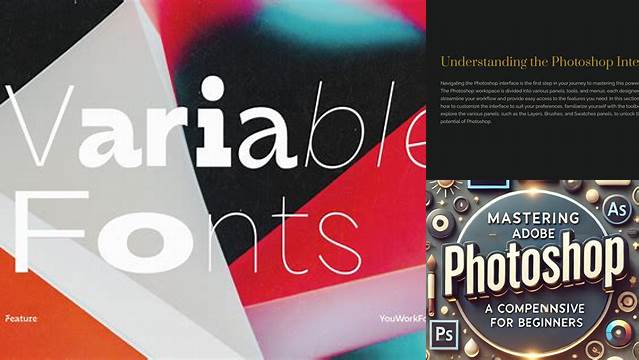
Variable Fonts In Photoshop: A Beginner's Guide
Using variable fonts in Photoshop opens up a whole new world of typographic possibilities, allowing you to create dynamic and engaging designs. This comprehensive guide will walk you through everything you need to know, from understanding the basics to implementing advanced techniques. Get ready to elevate your designs and unlock the full potential of variable fonts!
What are Variable Fonts and Why Should You Care?
So, what exactly are variable fonts? Well, guys, imagine a single font file that packs a whole bunch of different styles and weights within it. Instead of having separate files for bold, italic, condensed, and all the other variations of a typeface, you get one super-powered font that lets you smoothly adjust those characteristics. Think of it like a slider – you can tweak the weight, width, slant, optical size, and other design axes to find the perfect look for your text. This is awesome because it gives you unprecedented control over your typography. Before variable fonts, if you wanted to change the weight of a font, you had to switch to a different font file altogether, which could be a pain. Now, you can just slide the weight axis until you get exactly what you want. This flexibility is amazing for creating responsive designs that adapt to different screen sizes and layouts, ensuring your text always looks its best. Variable fonts also help with file size optimization. Since you're using a single font file, it's generally smaller than a collection of individual font files, which can speed up website loading times and improve overall performance. This also means you can create a wider range of text variations within a design, adding more personality and visual interest without bloating your project. Variable fonts can bring your projects to life, creating a more dynamic and user-friendly experience!
Diving Deep: Understanding the Anatomy of Variable Fonts
Alright, let's get under the hood and peek at how variable fonts actually work. Every variable font is built on a set of design axes. These axes are like the sliders I mentioned earlier – they control different aspects of the font's appearance. The most common axis is the Weight axis, which controls the thickness of the strokes. Then you have the Width axis, which adjusts the horizontal spacing of the characters, and the Italic or Slant axis, which affects the angle of the text. Some variable fonts even have more specialized axes, like Optical Size, which changes the font's appearance to look better at different sizes, or Grade, which adjusts the thickness of the strokes for different printing conditions. Each axis has a numerical range, and the values you choose on these axes determine the final look of the text. For example, the Weight axis might range from 100 (light) to 900 (black), allowing you to dial in any weight you need. You can also use combinations of axes. You could, for example, make a font heavier and more condensed. The beauty of variable fonts lies in their potential for fine-tuning. They allow you to create subtle and elegant transitions between different styles within your designs, improving visual interest and accessibility! They can be used for creative expression, data visualization, and responsive design, offering flexibility and efficiency in modern design projects. With the help of variable fonts, you have total control over your text!
How to Identify and Find Variable Fonts
Okay, now that you know the basics, let's talk about how to actually find these magical fonts. Not every font is a variable font, so you'll need to know where to look. The easiest way to identify a variable font is to check the font's metadata. If a font is variable, the font file will contain information about its design axes. When you're browsing font websites, such as Google Fonts, Adobe Fonts, or other font foundries, look for indicators that a font is variable. The website might have a special tag, badge, or filter to help you identify them. Another thing to watch out for is the font preview. Variable fonts will usually have a preview that lets you play with the different design axes. You might see sliders or other controls that let you adjust the weight, width, and other characteristics of the font. If you see those, it's a pretty good sign you've found a variable font! When you have installed a font that you think is variable, you can confirm this in Photoshop's Character panel. If the font is variable, you will find sliders to adjust the font's different features. This way, you can quickly and easily identify and experiment with these powerful fonts. Once you have a few variable fonts in your collection, you'll be able to take advantage of their versatility and create unique and beautiful designs!